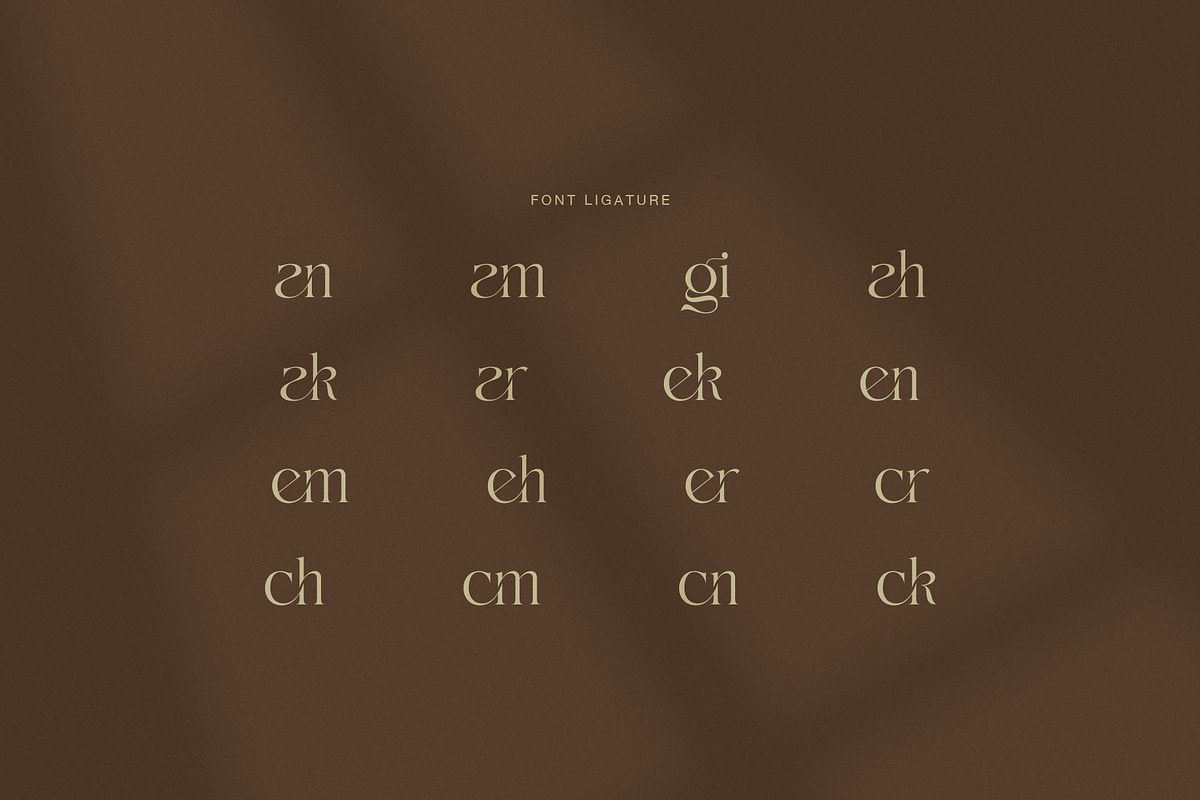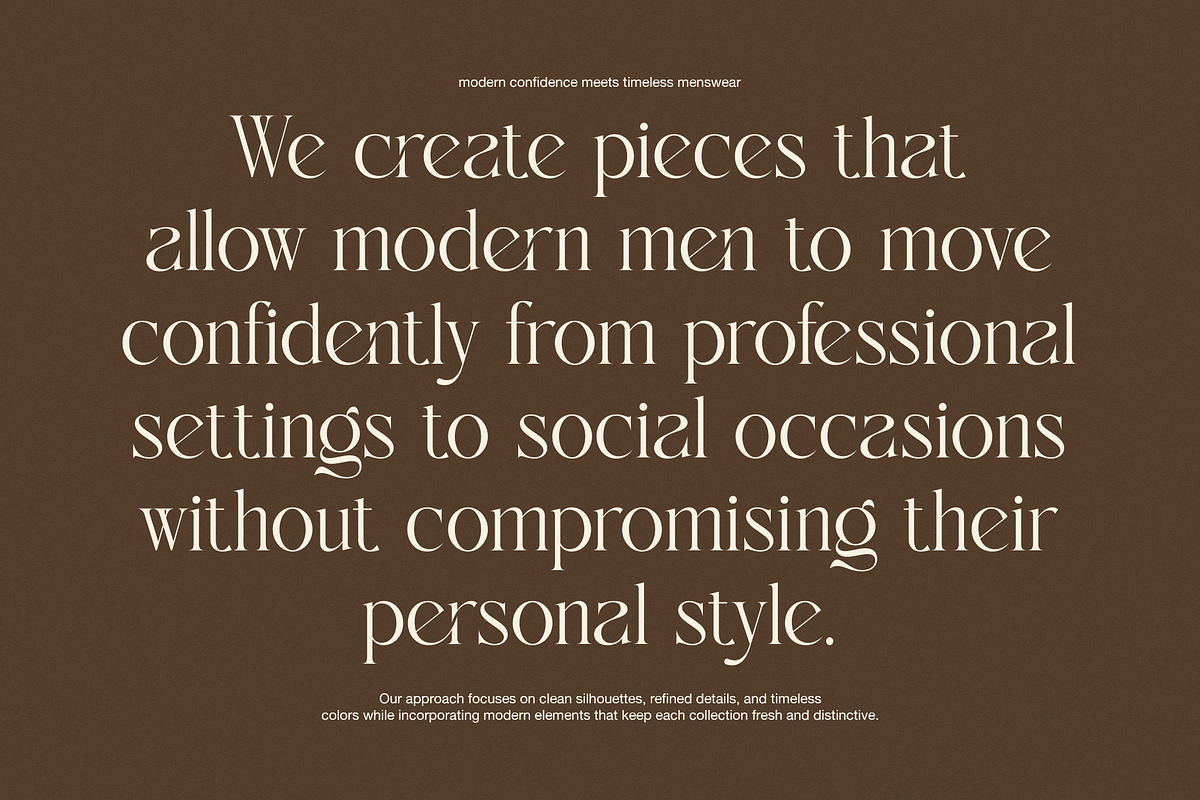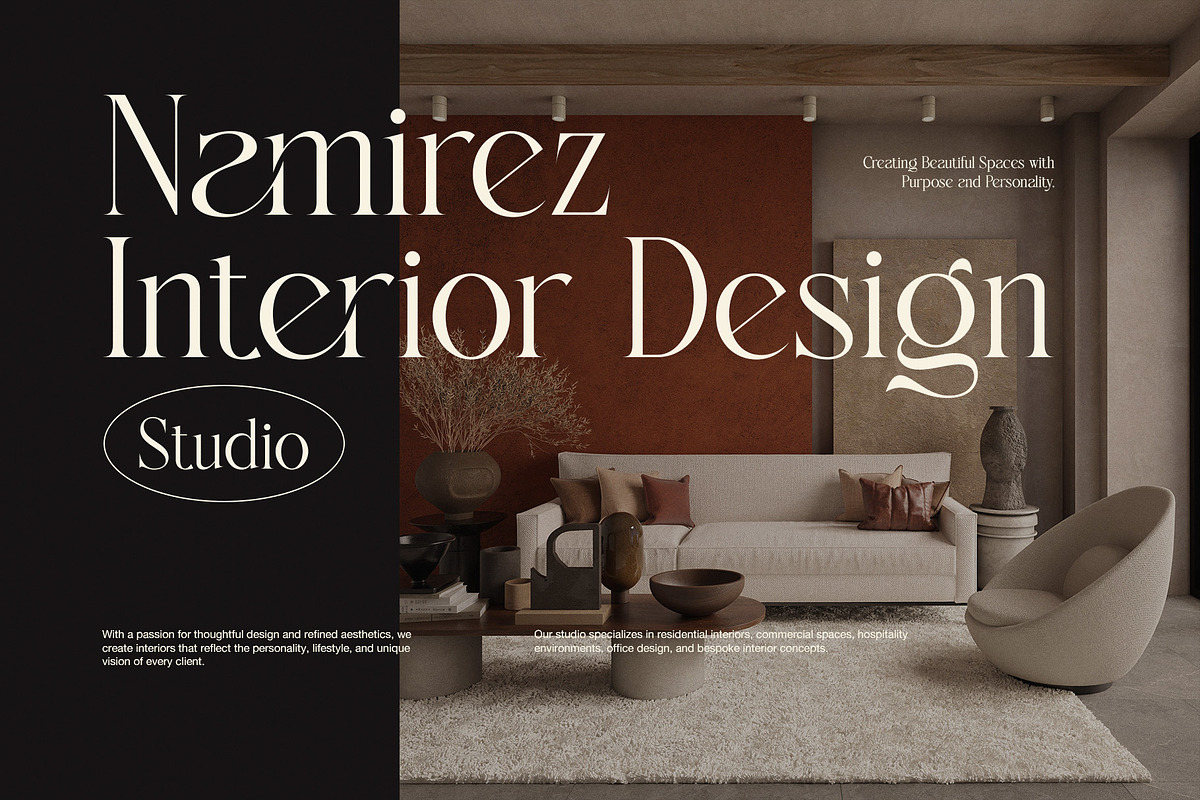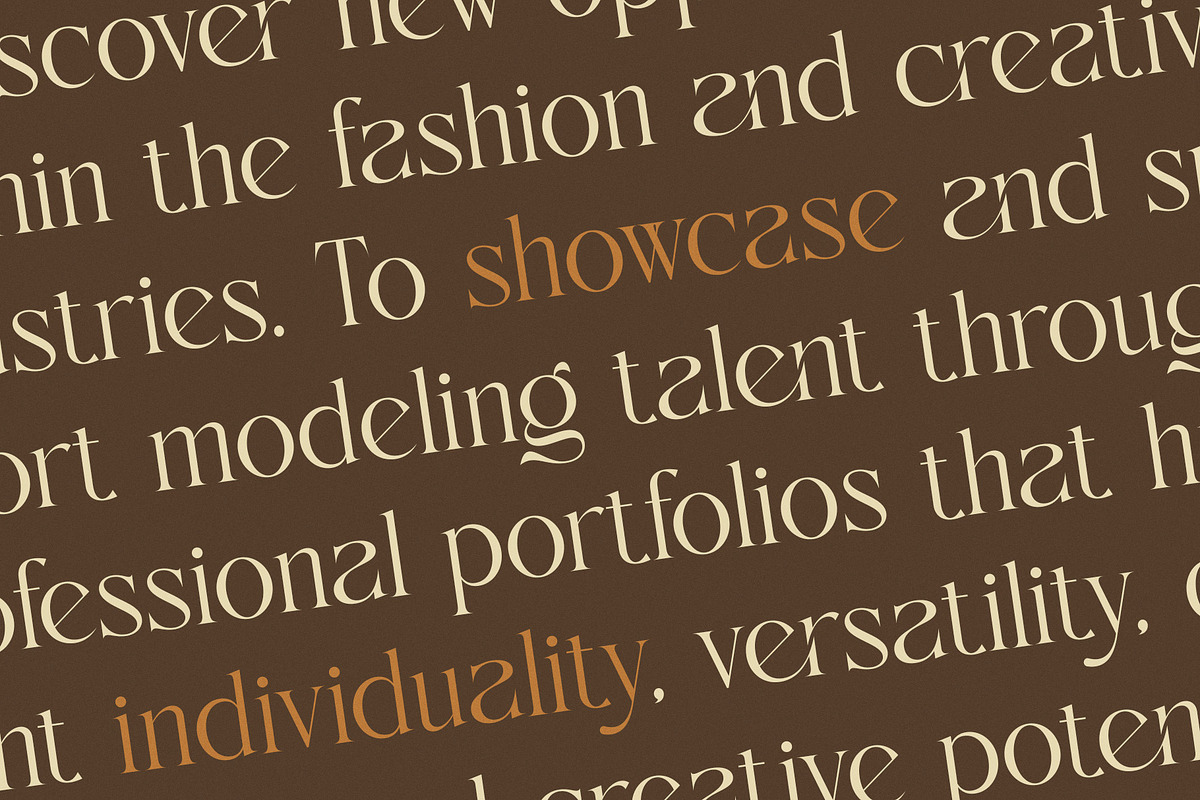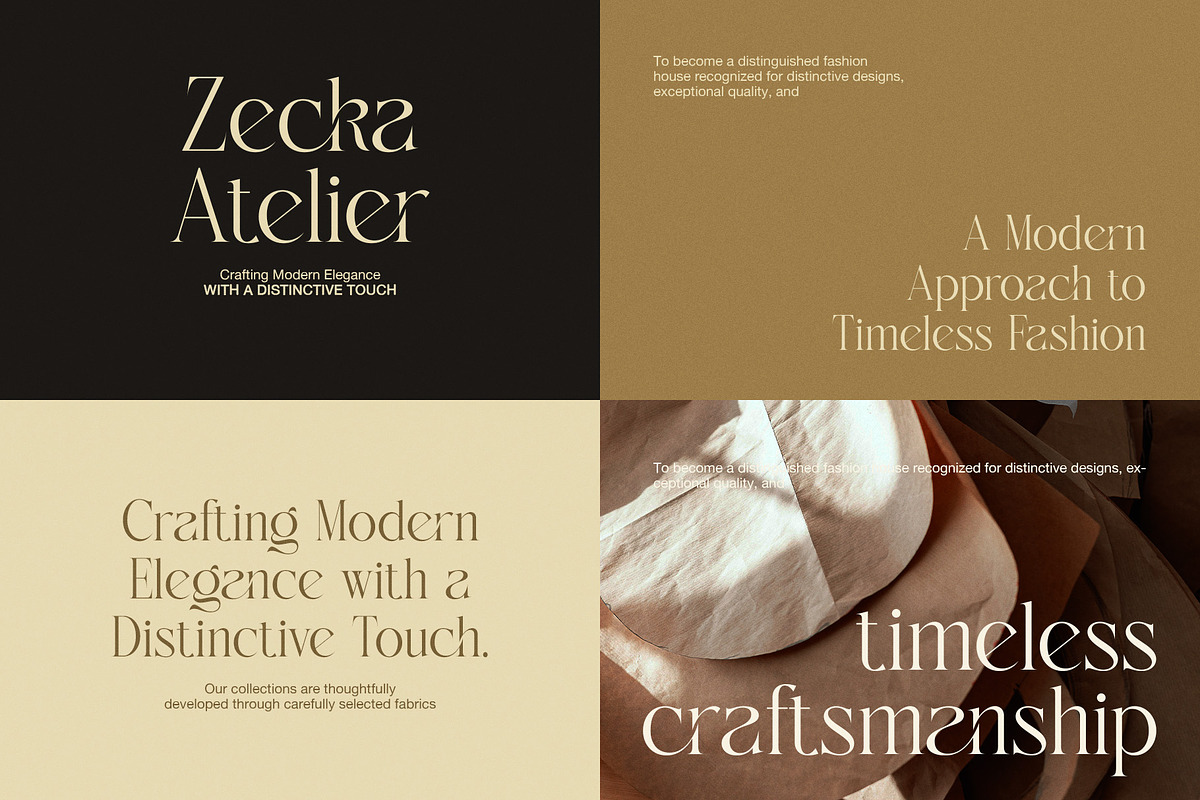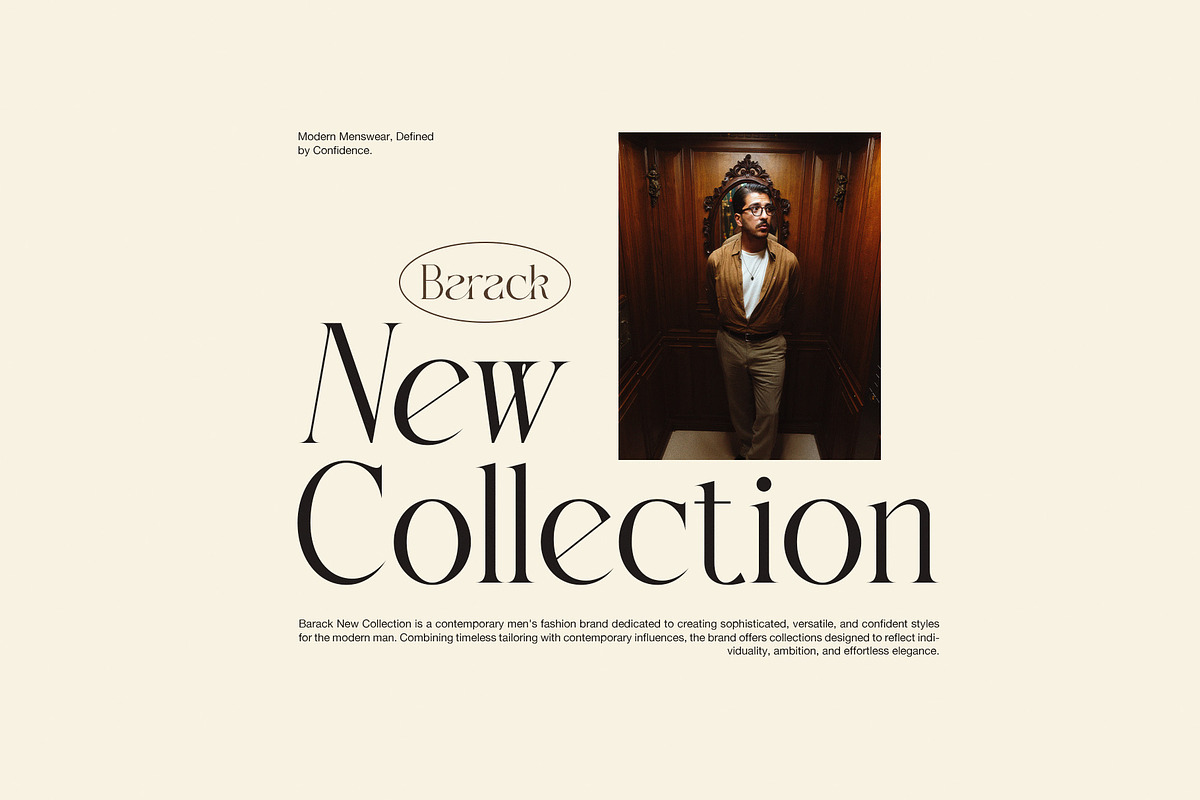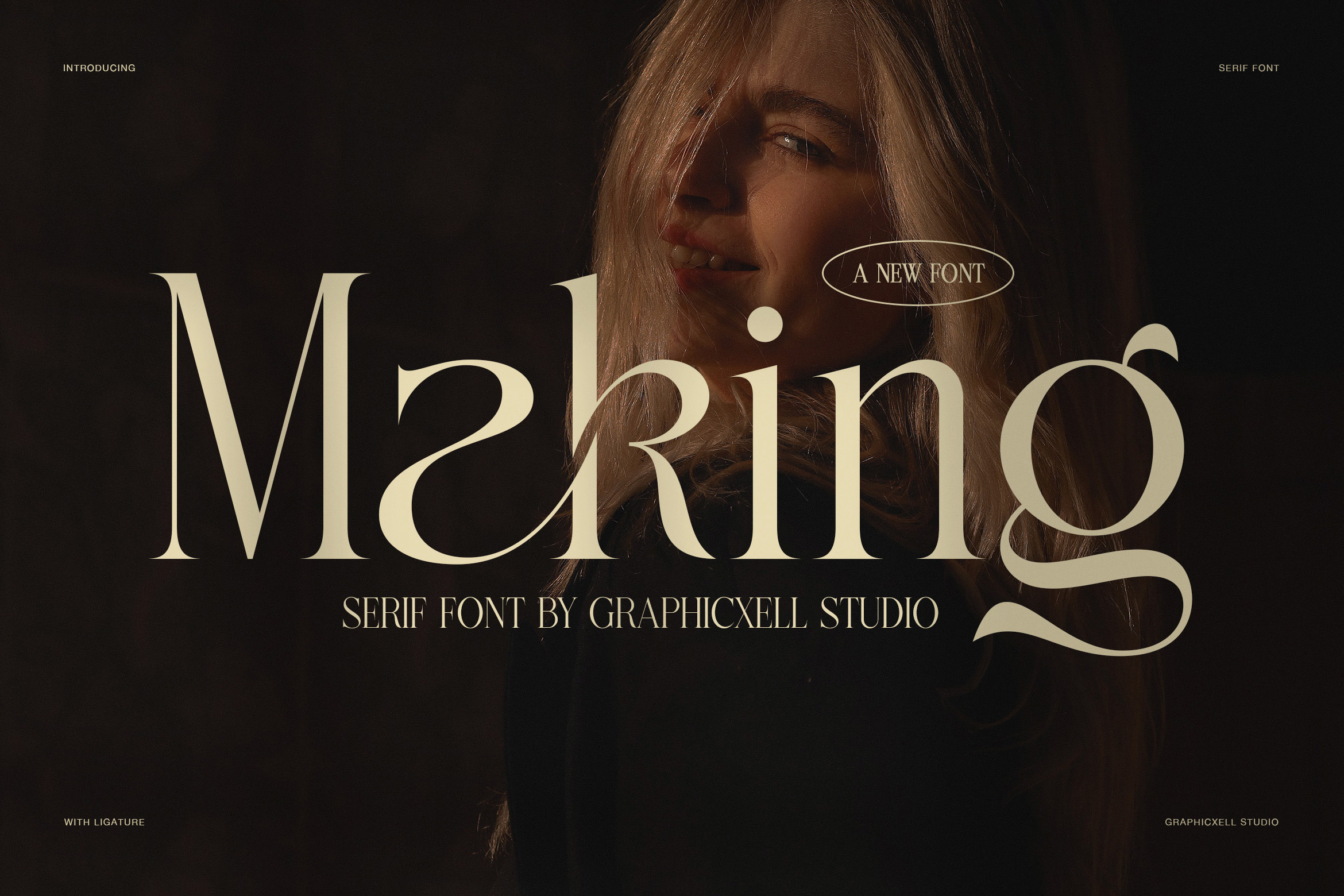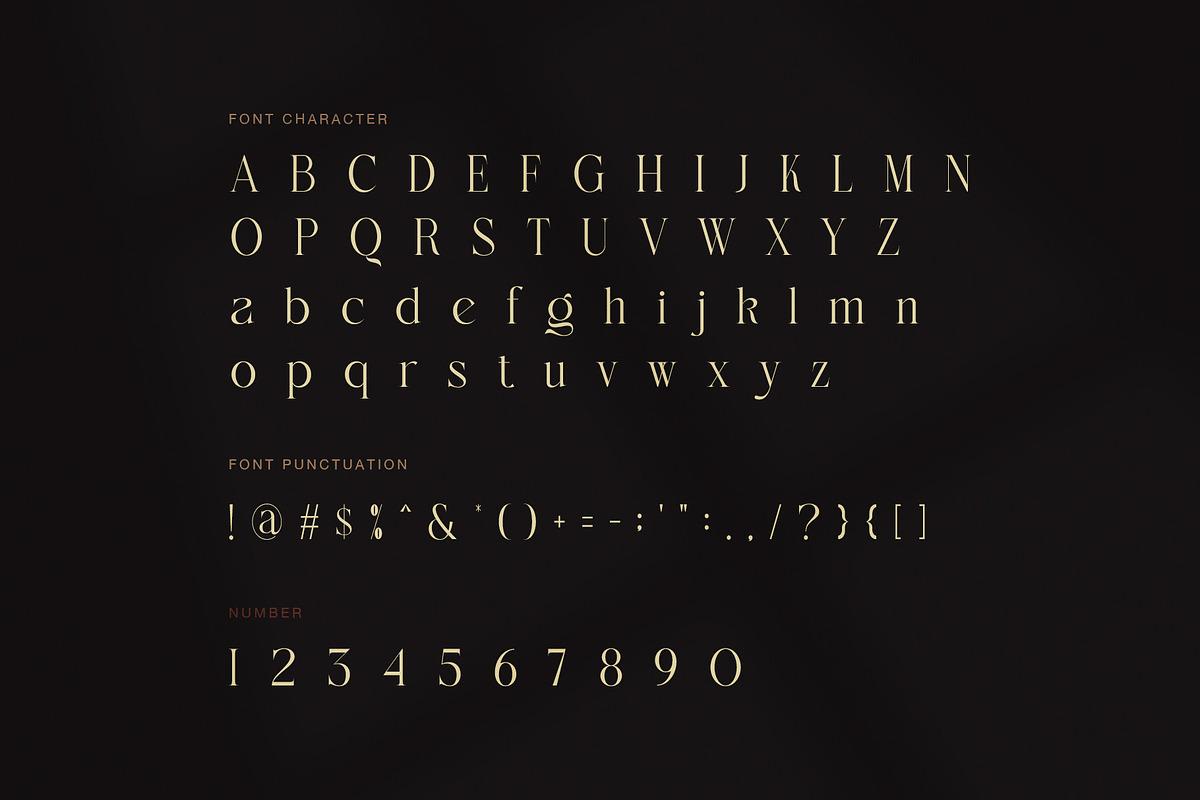
Making Modern Elegant Serif Font
Making is a modern elegant serif font with a bold fashion feel. Its refined shapes create a polished look for premium design projects. The typeface combines high contrast strokes with slim hairlines and graceful curves. As a result, every headline feels stylish, clean, and full of character.
This modern elegant serif font is made for designers who want strong visual impact. Its tall forms give layouts a fresh editorial mood. Meanwhile, soft curves add warmth and a touch of classic beauty. The contrast between thick and thin strokes makes large text stand out. Therefore, Making works especially well in display sizes and short statements.
Making includes uppercase and lowercase characters for flexible typographic layouts. It also includes numbers and a useful range of punctuation marks. In addition, selected letter pairs feature stylish ligatures for a custom finish. These details can make brand names and headlines feel more unique. Furthermore, the ligatures add movement without making the design feel too ornate.
Use Making for fashion branding, luxury logos, and beauty campaigns. It also suits magazine covers, editorial layouts, and creative studio identities. Moreover, the font works beautifully for wedding invitations and elegant stationery. You can also use it for perfume labels, product packaging, and social media graphics. For websites, it adds a strong look to hero titles and landing pages.
The font has a graceful style that fits both modern and classic concepts. Because of its clean structure, it pairs well with simple sans serif fonts. Use the serif face for headlines, then add a neutral font for supporting copy. This approach creates clear hierarchy while keeping the design refined.
Modern high contrast serif style
Elegant fashion and editorial character
Tall, refined letter proportions
Strong thick and thin stroke contrast
Numbers and punctuation
Stylish ligatures for selected combinations
Excellent for display typography
Great for branding and logo design
Suitable for print and digital projects
Overall, Making brings elegance, confidence, and personality to your typography. It is a strong choice for designers seeking a premium serif font. Whether you are building a fashion brand or an editorial layout, Making adds polish. Its refined forms help create memorable designs with a sophisticated visual voice.